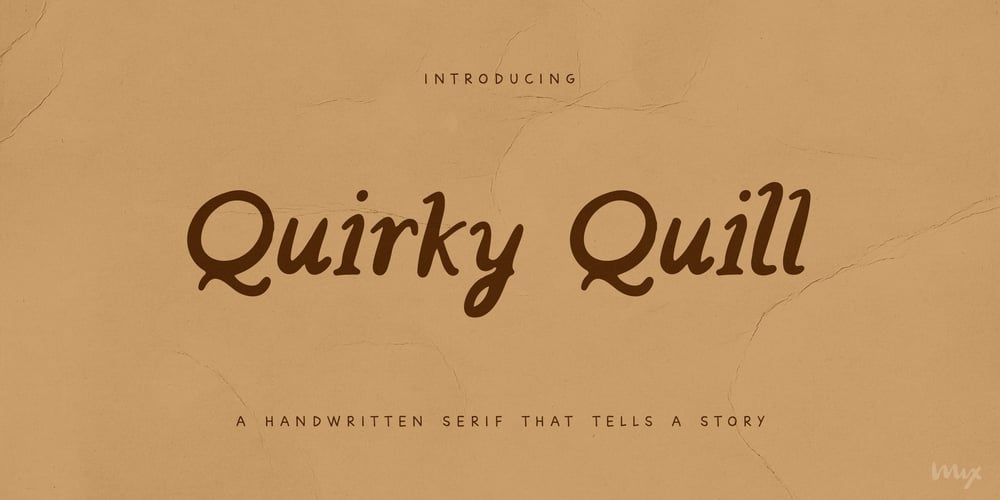
Quirky Quill
Quirky Quill font
Quirky Quill Font Family was designed by Mikko Sumulong and published by Mix Fonts. Quirky Quill contains 1 styles and family package options. MIX QUIRKY QUILL is not your average font. Inspired by the old archival books and documents from the days of yore, MIX QUIRKY QUILL brings a touch of history and tradition to your designs. With its clean, slightly italicized letters, this font is the perfect choice for projects that aim to evoke a sense of timelessness.Think of the old record books in church archives, the documents from Ellis Island, and pre-technology paperwork. MIX QUIRKY QUILL is reminiscent of these timeless pieces, making it ideal for art events, classic artwork, theatre posters, and anything that demands an air of tradition and classic sophistication.But don’t let its historical roots fool you. MIX QUIRKY QUILL is a perfectly imperfect digitized handwriting font, with a playful and fun flair that makes it stand out. Its clean lines and slightly italicized letterforms provide a touch of sophistication, while its charming imperfections add a touch of personality.This font is perfect for use in earthy, classic palettes such as browns, creams, and ink greens. Whether you’re looking to create a vintage-inspired design or a modern, quirky take on tradition, MIX QUIRKY QUILL is the font for you. Add Quirky Quill to your design arsenal today and see what story you can tell!MIX QUIRKY QUILL comes with the following glyphs: ABCDEFGHIJKLMNOPQRSTUVWXYZ abcdefghijklmnopqrstuvwxyz 0123456789 !@#$%^&*()`~♥✿•· ÷×+−±≈=≠≥≤[]<>:;’”,.|/ {}“”‘’-–—_…‚„©®™‹›«»°¹²³¡¿₱¢€£¥¶§№† ÁÀÂÄȦÃÅĂĀĄÆĆĈČĊÇÐĐÉÈÊËĖĒĘḞǴĜǦḠĠĤȞḦḢIÍÌÎÏĪĮĴḰǨŁḾṀŃÑŇ ÓÒÔÖÕŌŐØŒṔṖŔŘṘŚŜŠŞȘŤṪȚÚÙÛÜŨŮŬŪŰŲẂẀŴẄẆÝŶŸŹẐŽŻƵ áàâäȧãåăāąæćĉčċçðđéèêëėēęḟǵĝǧḡġĥȟḧḣıíìîïīįĵḱǩłḿṁńñň óòôöõōőøœṕṗŕřṙśŝšşșťṫțúùûüũůŭūűųẃẁŵẅẇýŷÿźẑžżƶ Alternates/Ligatures: & j gg kk ll lt mm nn oo th tt